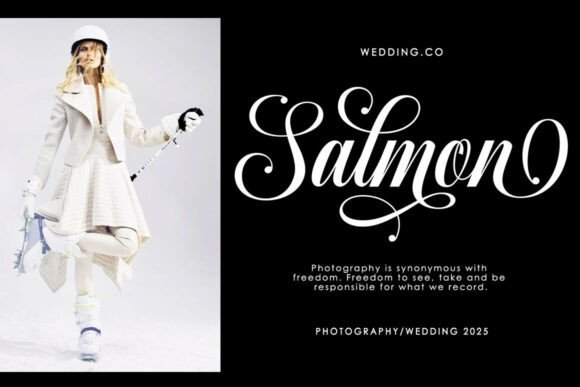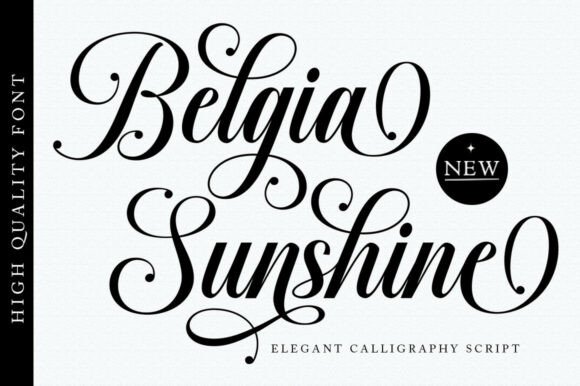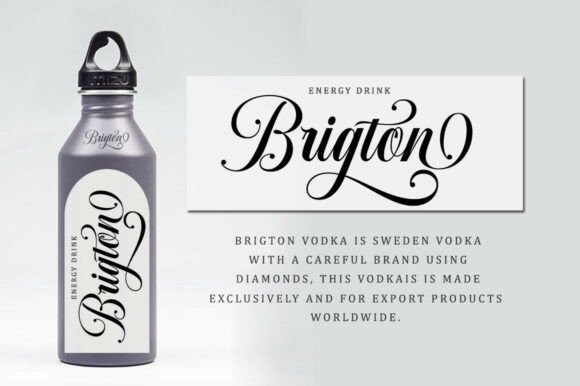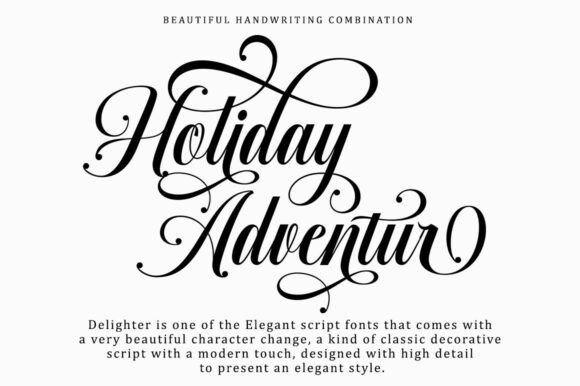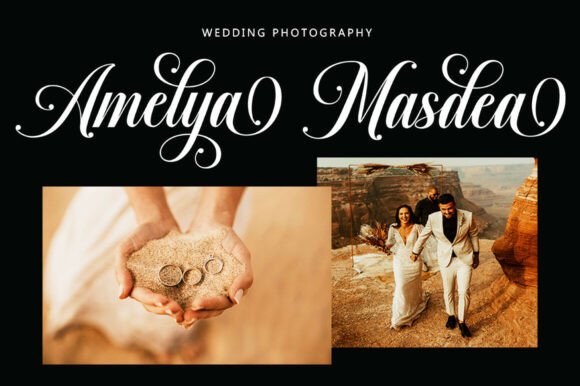
Introducing Delighter Font: Elevate Your Designs with Elegance
In the world of typography, a font can make or break a design. For those seeking an elegant and sophisticated touch, Delighter Font is an exceptional choice. This beautiful script font boasts a classic style with a modern twist, meticulously designed to bring an air of refinement to any project. Whether you’re a designer, crafter, or DIY enthusiast, Delighter Font is sure to captivate your audience with its clean lines, feminine charm, and effortless readability.
The Essence of Delighter Font
Delighter Font is characterized by its stunning character variation, which sets it apart from more traditional fonts. The elegant letter connections give it a fluid, dynamic feel that’s both visually appealing and highly legible. This makes it an excellent choice for a wide range of applications, from formal invitations and wedding cards to fashion branding, packaging, and advertising.
One of the standout features of Delighter Font is its incredible versatility. Its classic style ensures it never goes out of fashion, while its modern undertones keep it fresh and relevant. This font can be used for:
- Invitations: Make your formal events, such as weddings, galas, or baby showers, unforgettable with beautifully crafted invitations.
- Labels and Packaging: Elevate your product branding with sophisticated labels and packaging that exude luxury and quality.
- Restaurant Menus: Add a touch of elegance to your restaurant or cafe’s menu, making every dining experience memorable.
- Logos and Branding: Create a lasting impression with a logo that embodies sophistication and style.
- Fashion and Makeup: Perfect for fashion designers, bloggers, and makeup artists looking for a font that speaks to their audience with style and grace.
- Stationery: Bring a level of sophistication to your letters, notes, and personal correspondence.
- Novels, Magazines, and Books: Use Delighter Font for titles, headings, or even body text to add an elegant flair to your publications.
- Greeting and Wedding Cards: Create heartfelt and beautiful cards for any occasion.
- Advertising: Stand out in the crowded advertising space with elegant and compelling text.
Why Choose Delighter Font?
Delighter Font offers a unique combination of characteristics that make it an invaluable asset for designers and crafters:
- Elegant and Sophisticated: Its classic yet modern design ensures your projects look refined and upscale.
- Clean and Easy to Read: Despite its fancy connections, Delighter Font maintains clarity and readability, making it suitable for both headings and body text.
- Feminine Touch: Adds a soft, graceful feel that’s perfect for brands or projects aiming for a feminine aesthetic.
- Attention to Detail: Crafted with precision, Delighter Font showcases exceptional attention to detail, reflecting the quality of your work.
Delighter Font is more than just a script font; it’s a design element that can elevate your projects to new heights of elegance and sophistication. Its versatility, beauty, and readability make it an excellent choice for a myriad of applications. Whether you’re working on a formal invitation, a fashion brand, or any project that demands a touch of class, Delighter Font is sure to impress. Embrace the elegance and let Delighter Font be the voice of your brand or creation.